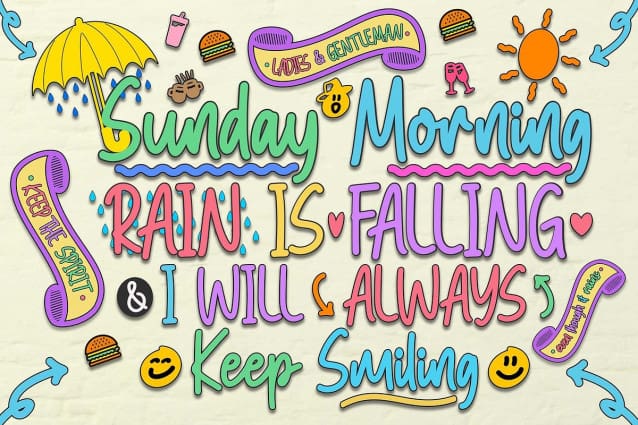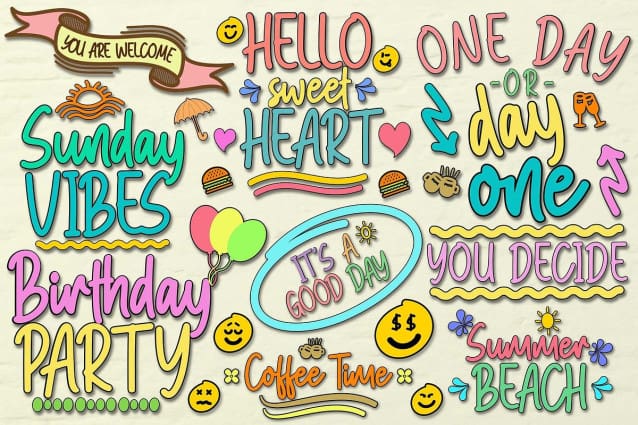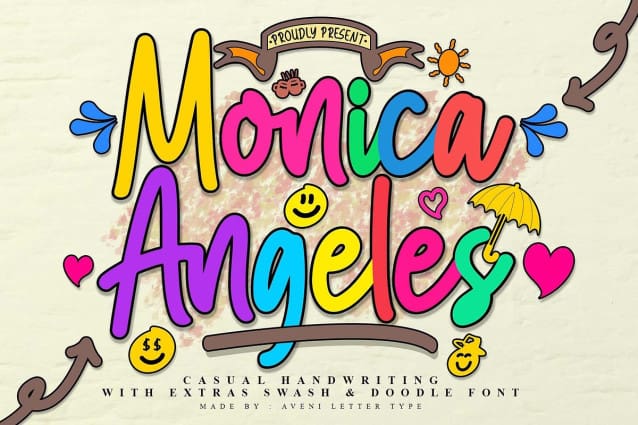
Monica Angeles Font
Monica Angeles Font which was born as a casual handwriting with font family, MonicaAngeles Bold, and MonicaAngeles Doodle with Emoji font. You can use these fonts easily together or separately, or mix and match, as you wish!
And of course, this Monica Angeles font is very Instagrammable. It can be used for many projects that you are working on such as greeting cards, product branding, logotypes, business cards, letterheads, cafe menu tables, shop names, company names, wedding invitation cards, packaging products for your business, clothing branding, crafts, your website or social media and of course there is much more creativity that you can use from this Monica Angeles font.